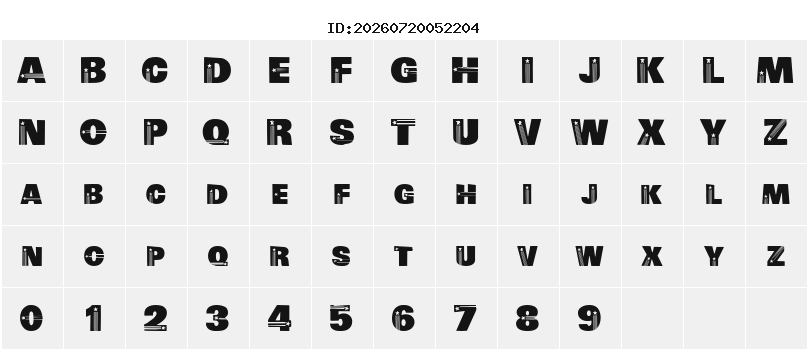
ElectionTime Preview
About ElectionTime.ttf
ElectionTime.ttf is a modern, elegant sans-serif font designed for ultimate readability and visual harmony. Perfect for branding, headlines, web design, and print materials.